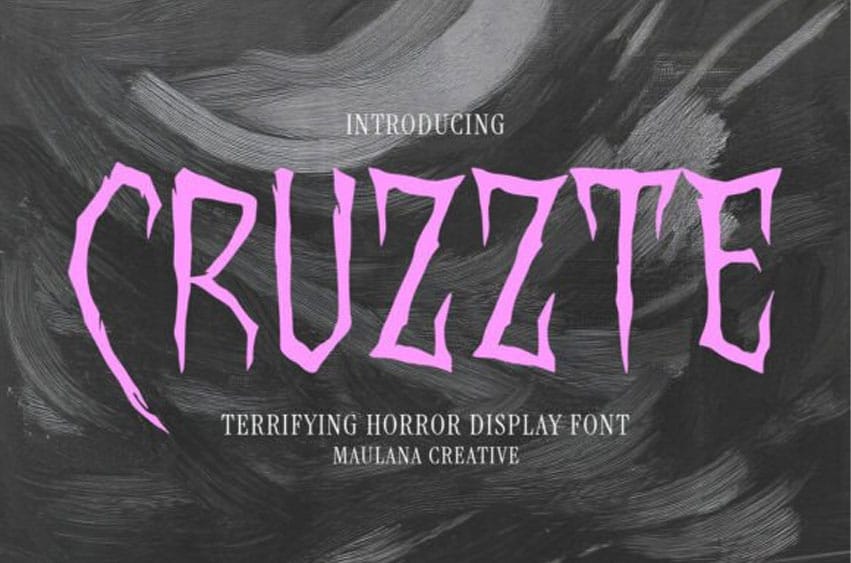
Cruzzte Font is a scary and spooky display font designed to bring a chilling, bone-rattling aesthetic to your projects. With its jagged edges, twisted forms, and dripping-blood appearance, this typeface is perfect for designers looking to create high-impact, terrifying visuals.
This grotesque and intensely frightening display typeface is specifically designed to send shivers down the spine, making it the ultimate choice for any project that dares to delve into the macabre. The Cruzzte font features jagged, elongated, and distorted letterforms that mimic dripping blood, decaying flesh, or sharpened claws, creating an unmistakably terrifying aesthetic.
Each glyph in this horror display typeface is a work of dark art, imbued with an eerie energy that practically screams fear and despair. Ideal for horror movie posters, Halloween event invitations, scary video game titles, haunted house signage, or gruesome book covers, the Cruzzte typeface promises to immerse your audience in a world of terror. If you want to evoke genuine fear and create an unforgettable chilling impression, this font is your darkest ally.
Inspired by classic horror movies, slasher flicks, and Gothic imagery, Cruzzte delivers a powerful sense of dread and mystery. The unique, aggressive design of each character ensures your message stands out and grabs the viewer’s attention instantly.
Perfect for:
– Movie: Horror, thriller, Halloween, and suspense genres.
– Album: Metal, rock, gothic, and dark electronic music.
– Designs and Merch: Edgy, spooky, and alternative.
– Event and Promotions: Haunted houses, Halloween parties, and horror conventions.
– Branding: Escape rooms, spooky brand identities, and video games.